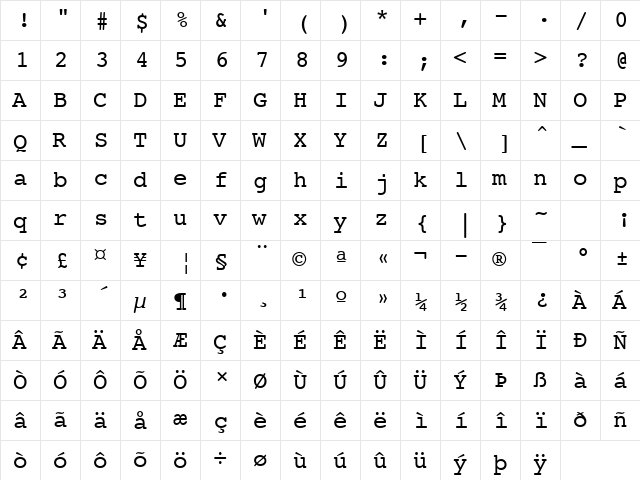
Courier10 Win95BT Roman
Design Context for Courier10 Win95BT Typeface
Courier10 Win95BT brings the precise, column-aligned rhythm of monospaced typography to designs that value technical clarity and systematic order.
Pro Tip: Pair Courier10 Win95BT with a proportional sans for UI contexts where code-style labels and regular body copy need to coexist.